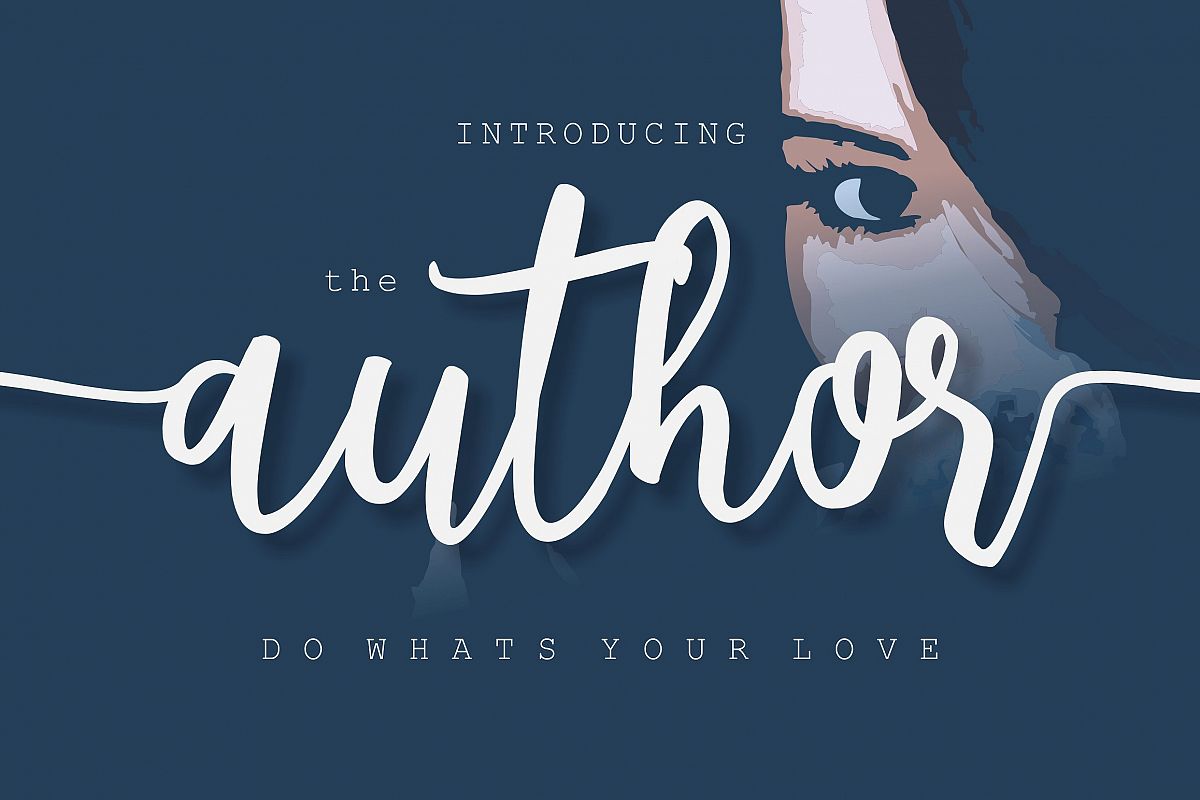
the Author
Author
Author script typeface the new very interesting. Perfect for projects brands, logos, product packaging, branding, clothing, scrap booking, posters, invitations, greeting cards, news, blogs, everything including personal charm.
This includes uppercase, lowercase, numerals, fractions, punctuations, and other glyphs is a variation which is parts of the OpenType features such as; Standard Ligatures and Stylistic alternates.